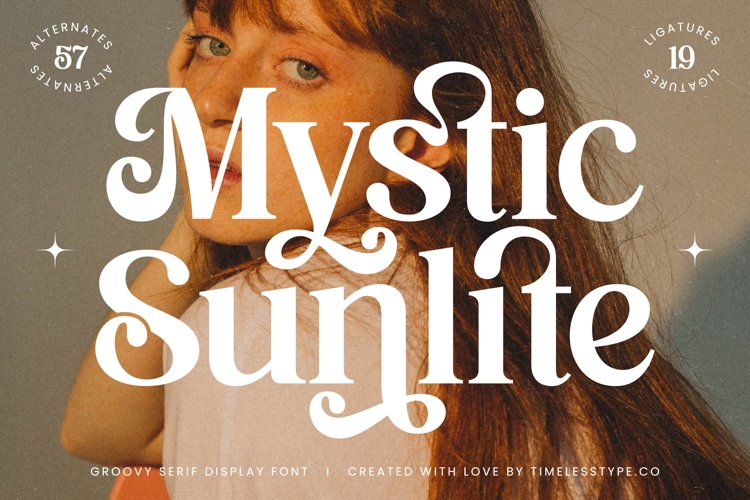
Mystic Sunlite - Groovy Serif Display Font
Unlock a new era of stylistic typography with Mystic Sunlite - Groovy Serif Display Font. This stunning display serif captures the timeless charm of 1970s aesthetics while providing a sophisticated, modern polish. Defined by its dramatic high-contrast thick and thin strokes and beautifully rounded, swirling terminals, the font exudes a warm, inviting energy. It is designed to be the definitive centerpiece of any project requiring a bold, vintage flair that still feels utterly contemporary.
Customize your message with unparalleled depth, utilizing the robust OpenType features inherent in Mystic Sunlite - Groovy Serif Display Font. Featuring 57 unique alternates and 19 bespoke ligatures, professional designers gain access to an expansive toolkit for crafting truly custom logotypes and distinctive headlines. This wealth of stylistic options ensures exceptional versatility, allowing the typeface to transform from subtly elegant to overtly dramatic and expressive instantly, meeting diverse client needs.
Expand your creative reach across the globe with its extensive multilingual support, Mystic Sunlite - Groovy Serif Display Font adapts seamlessly across global markets, making it incredibly versatile for international projects. This global compatibility ensures that your brand identity maintains its distinctive, compelling visual voice regardless of the language barrier, providing genuine value for worldwide campaigns and maximizing your SEO potential.
The perfect choice for impactful visual communication, Mystic Sunlite - Groovy Serif Display Font is ideally suited for luxury branding, sophisticated beauty packaging, high-end editorial design, and artisanal product labels. Its inherent "groovy" nature makes it unmatched for fashion magazines, music album artwork, and any project demanding maximal visual impact and memorability. Elevate your design portfolio today with this essential, high-quality display font.